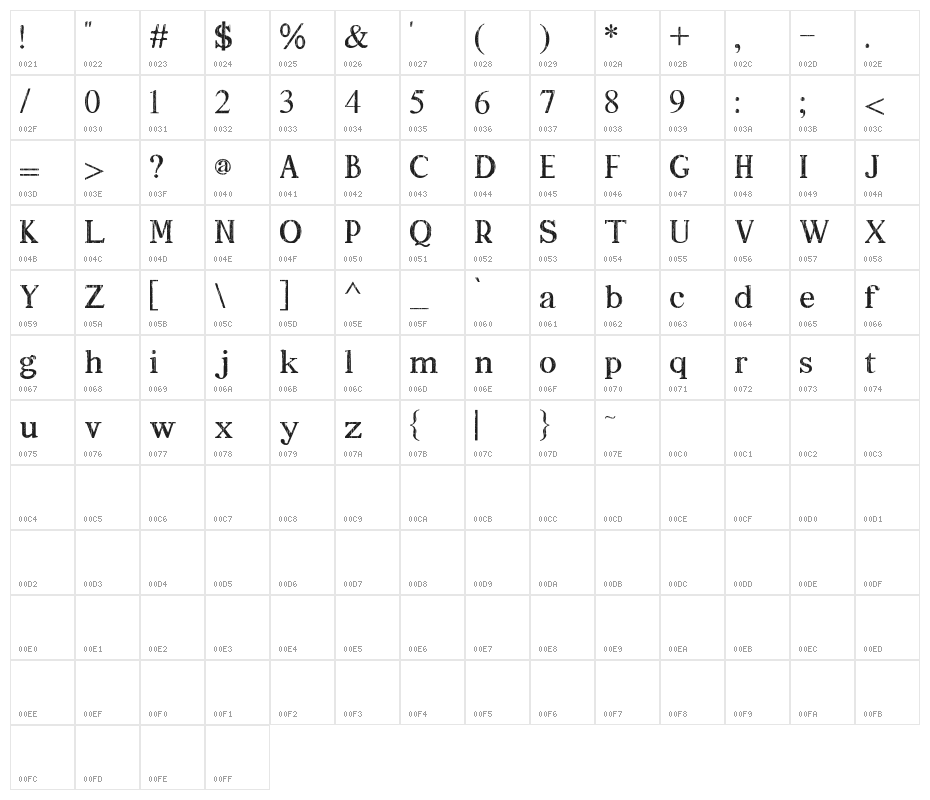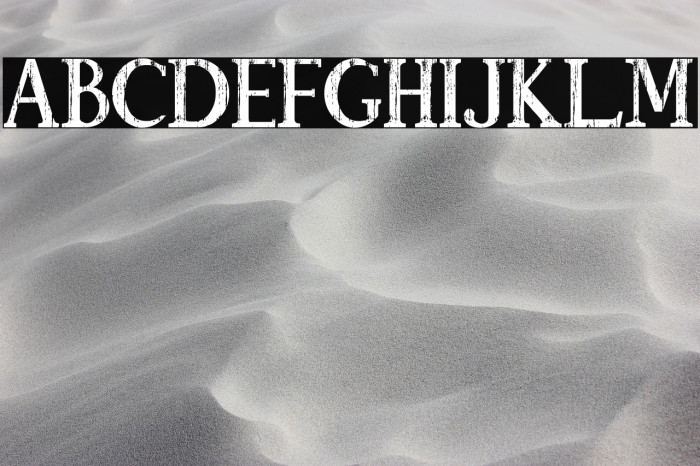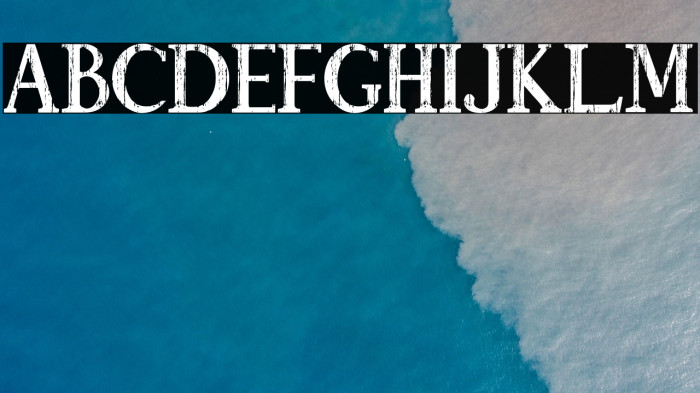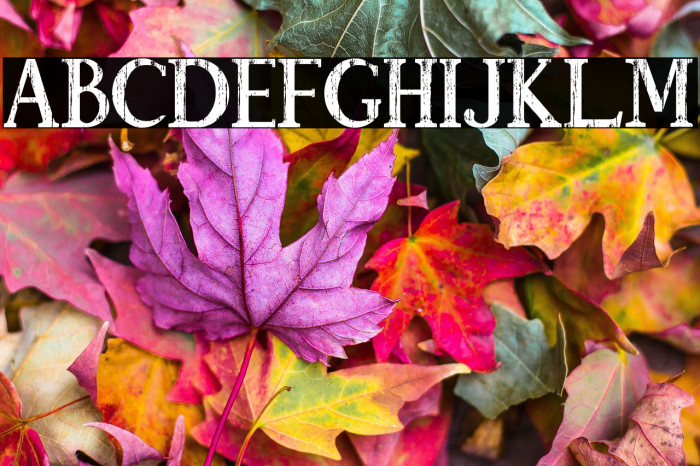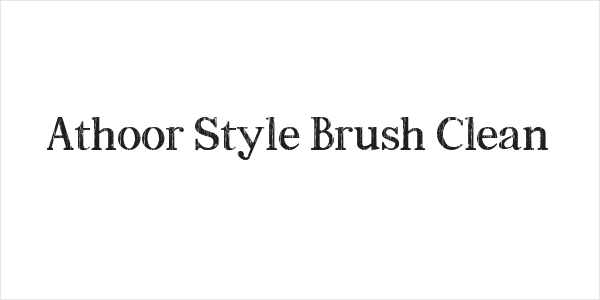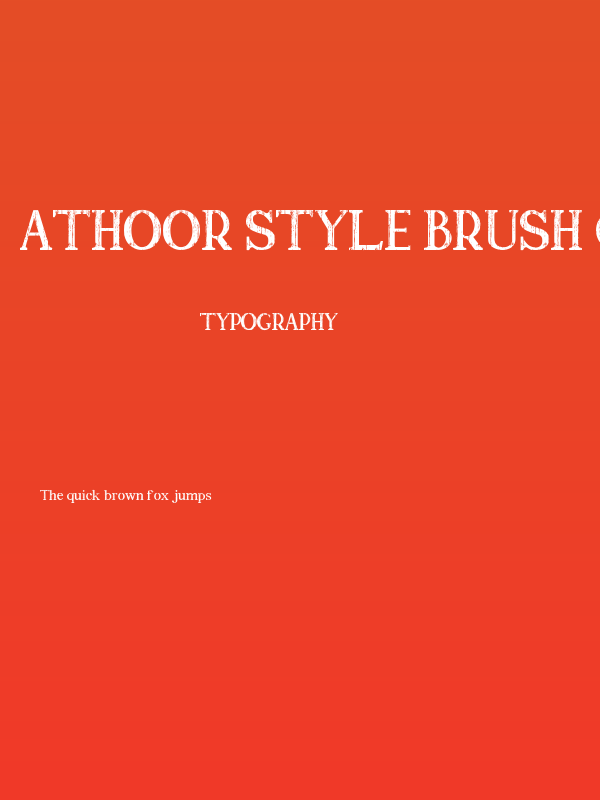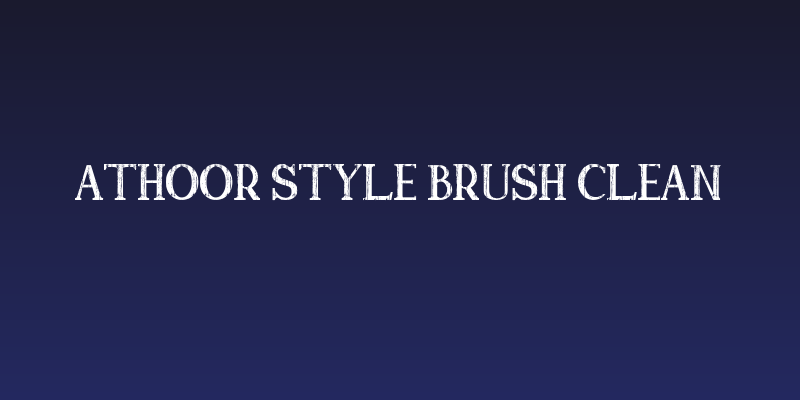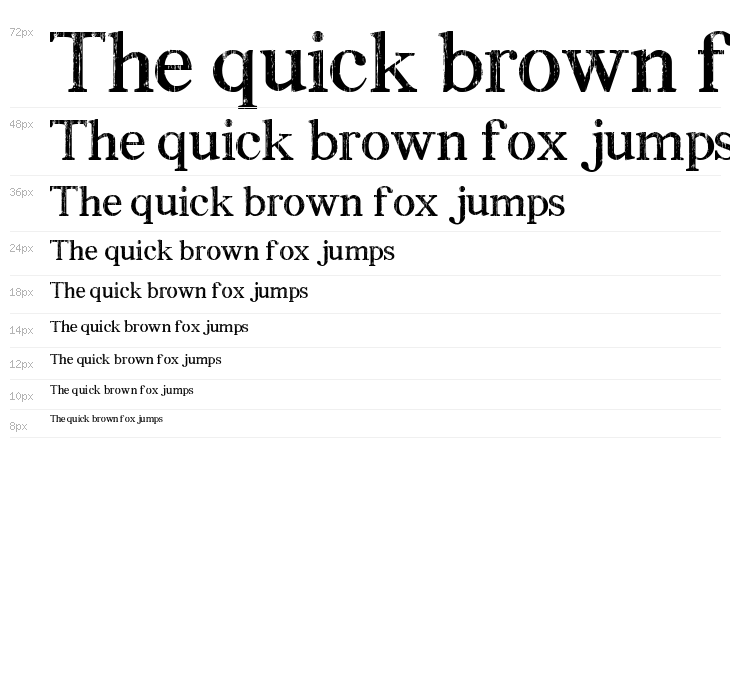
Athoor Style Brush Clean Font
Athoor Style Brush Clean Description
This font features a bold and textured appearance, reminiscent of a brush stroke effect. The characters are designed with a distressed look, giving them a rugged and artistic feel. The uppercase and lowercase letters maintain a consistent style, with slightly uneven edges that add to the handcrafted aesthetic. The numerals and special characters follow the same design principles, ensuring a cohesive look across all glyphs. This font's unique style makes it stand out, perfect for projects that require a strong visual impact.
| Overall Style | Artistic, Rugged |
| Proposed Projects | Ideal for posters, album covers, branding materials, and any design that benefits from a bold, artistic touch. |